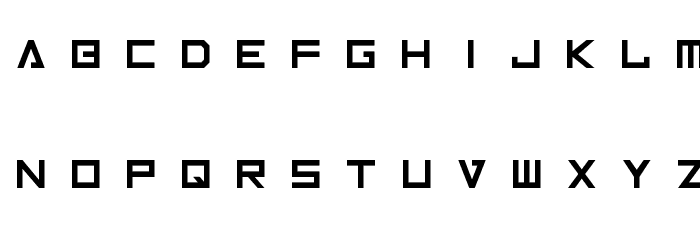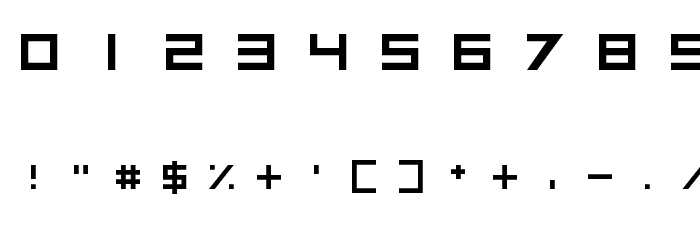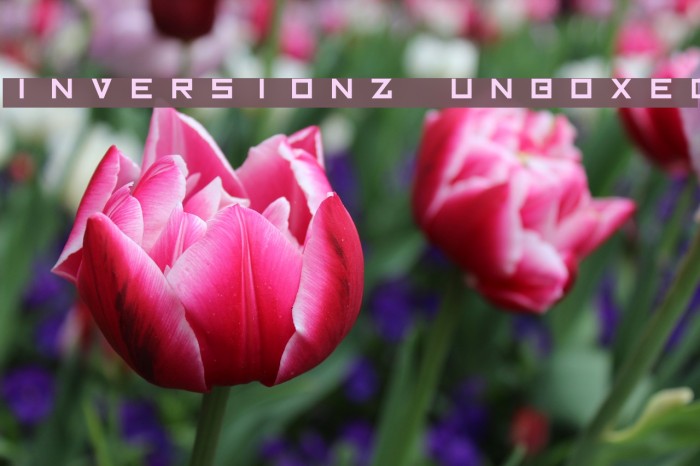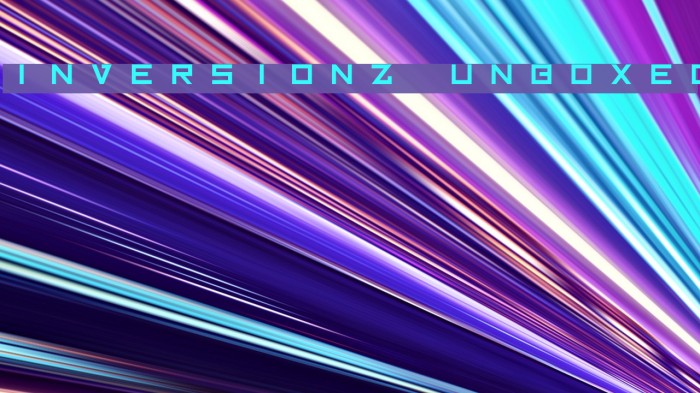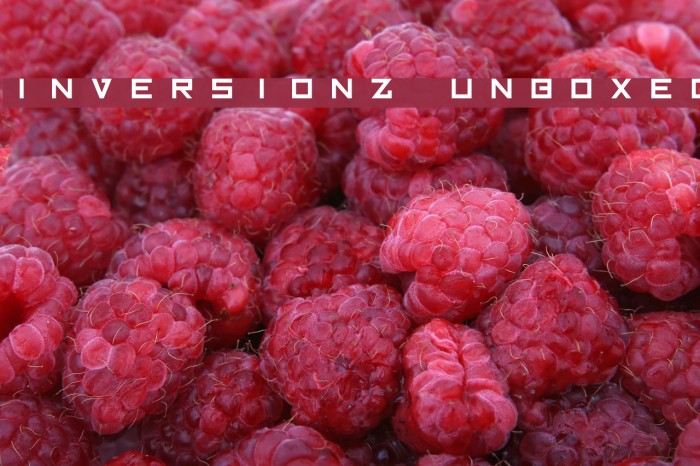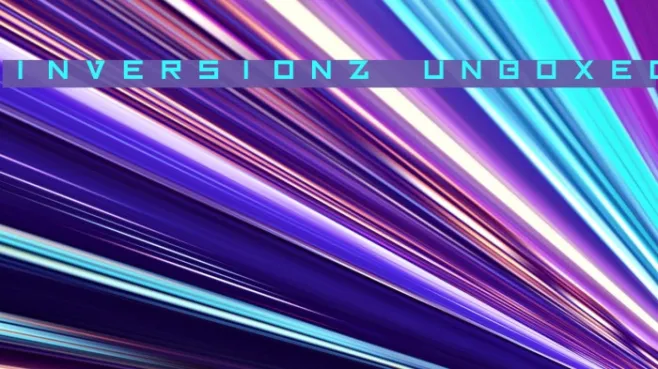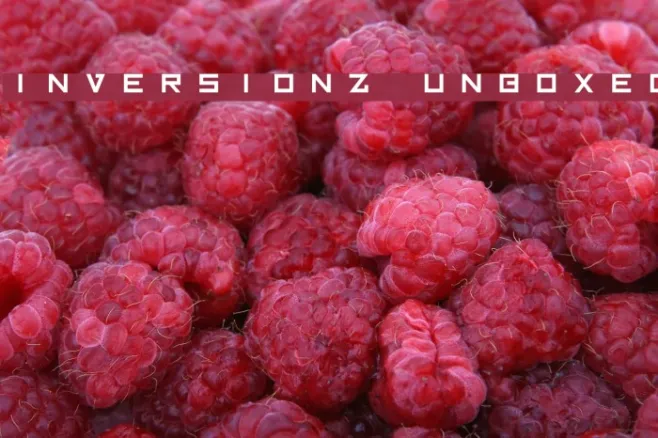
Inversionz Unboxed Font
This font features a futuristic and geometric design, characterized by sharp angles and a consistent block-like structure. The uppercase and lowercase letters maintain a uniform height, creating a cohesive and modern appearance. The numerals and special characters follow the same angular style, ensuring visual harmony across all elements. The font's distinct style is suitable for projects that require a contemporary and edgy look, such as technology branding, sci-fi themed designs, and modern digital interfaces.
A futuristic, geometric font with sharp angles and a cohesive block-like structure.
- Proposed Projects: Ideal for technology branding, sci-fi themed designs, modern digital interfaces, and video game graphics.